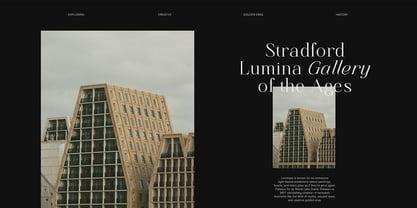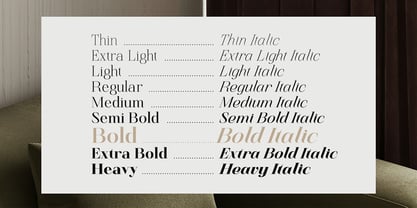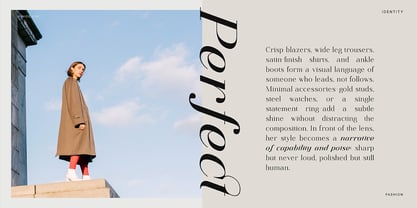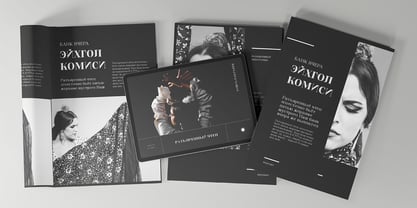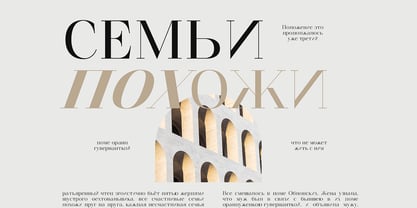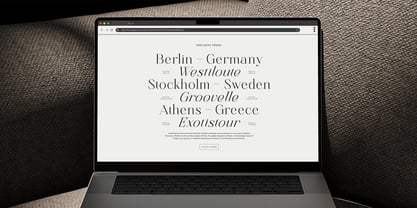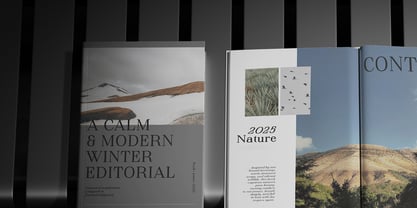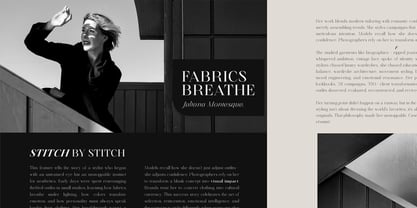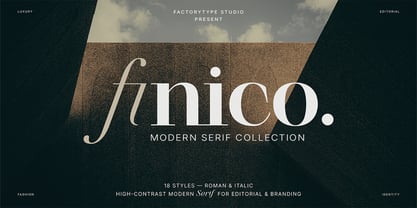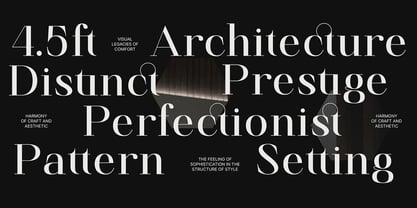
Finico
The Finico Font Family was designed by Wahyu Rahmawan and published by Factory738. Finico contains 18 styles and family package options. More about this family
Say hello to Finico Serif, a modern high-contrast serif family made to steal the spotlight. Designed for bold editorial statements, luxury branding, and expressive headlines, Finico blends sculpted elegance with contemporary sophistication. With refined curves, sharp serifs, and beautifully crafted italics, Finico brings a polished, confident energy to any design. Whether you’re creating magazine layouts, fashion identities, or premium packaging, this type family is built to elevate your work with style and presence. Finico Serif is a complete 18-style type system created for designers who love clean elegance and modern editorial aesthetics. Its contrast, rhythm, and striking italics make it a powerful choice for luxury brands and type-driven compositions. Includes: 18 fonts total (Roman & Italic) Thin, Extra Light, Light, Regular, Medium, Semi Bold, Bold, Extra Bold, Heavy Numbers & punctuation Ligatures & stylistic alternates Extended Latin & Cyrillic Foreign language support (119+ languages) A perfect serif companion for fashion, beauty, lifestyle, architecture, editorial design, and all things luxe. Thanks for looking, and I hope you enjoy it.